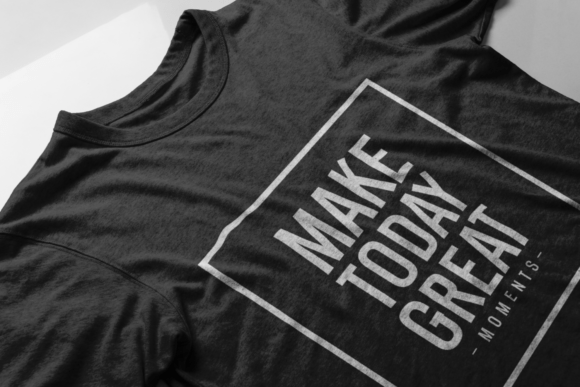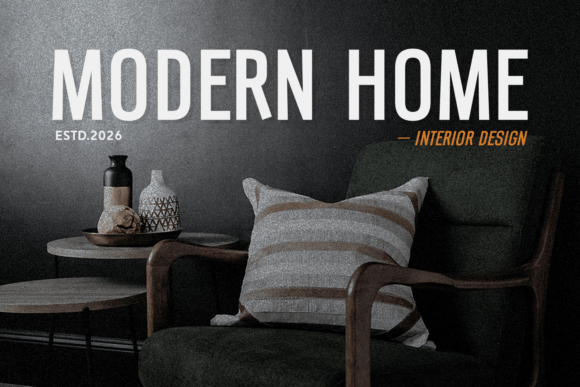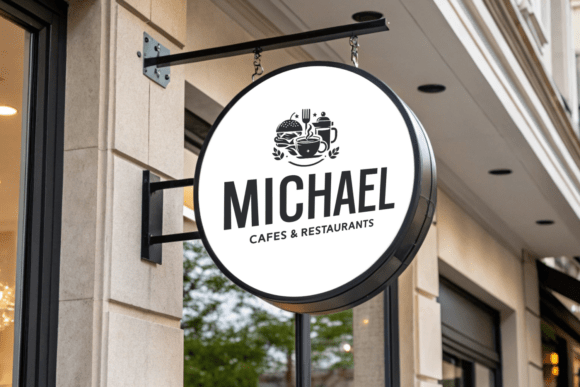
Introduction to Family Opinion Font
Speak with clarity and conviction using Family Opinion, a tall sans-serif display font designed for modern editorial impact.
This typeface features elongated letterforms with a “sturdy-minimalist” soul, blending clean verticality with tight spacing for a sophisticated, high-density look With its commanding height and professional weight, Family Opinion is the premier choice for independent lifestyle magazine titles, bold social commentary headers, contemporary film posters, and high-impact “minimalist-chic” digital branding.
Key Features of Family Opinion Font
Why Choose Family Opinion Font?